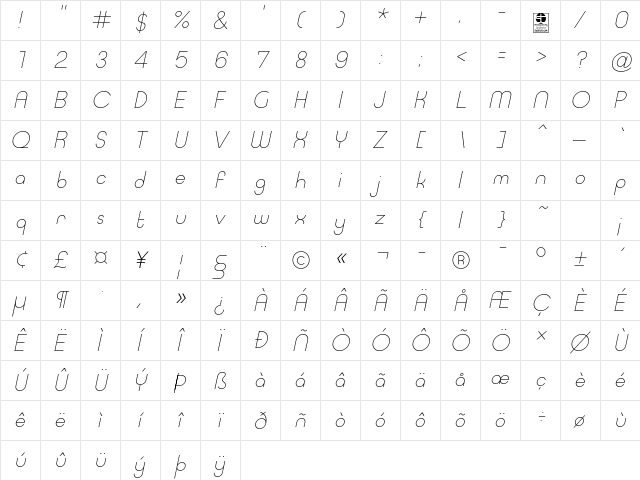
Typo Ring Light Demo Italic
Italic · StudioTypo Mehmet Abac ·
Foundry StudioTypo
FoundryStudioTypo
DesignerMehmet Abac
Design Context for Typo Ring Light Demo Typeface
Typo Ring Light Demo takes a measured approach to typography — its balanced proportions and neutral character make it a reliable workhorse for both digital and print work. The slanted form adds forward momentum and visual energy. Its slender proportions lend an understated elegance to any composition.